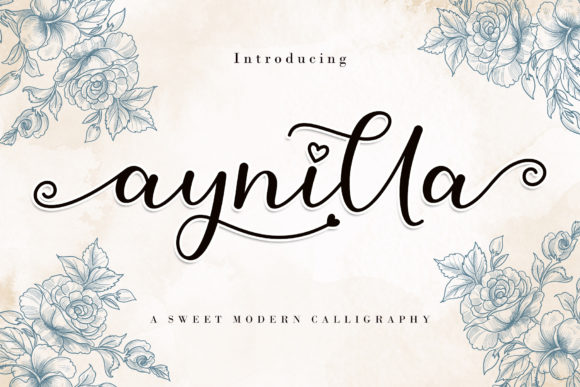
The Magic of Aynilla Font: Elevating Your Designs with Elegance
I’ll never forget the time I was working on a wedding invitation design project, and my client asked for a font that exuded luxury and romance. I scoured the internet, trying out font after font, but nothing seemed to fit the bill. That was until I stumbled upon Aynilla Font. This beautiful calligraphy typeface has been a game-changer for my designs, and I’m excited to share its magic with you! ✨
An Honest Review of Aynilla Font
- ✨ Romantic and sweet calligraphy style that adds a touch of elegance to any design
- ✅ Perfect for luxury designs, such as wedding invitations, branding, and packaging
- ✅ Characters that dance along the baseline, creating a beautiful, fluid look
While Aynilla Font is an amazing addition to any design project, there are a few things to keep in mind: 🤔
- ⚠️ Some users may find the font a bit challenging to read in large blocks of text
- ⚠️ Not suitable for very small font sizes, as some details may get lost
The Backstory of Aynilla Font
Aynilla Font was designed with the intention of creating a beautiful, elegant calligraphy typeface that would add a touch of luxury to any design project. The designer aimed to create a font that would be perfect for wedding invitations, branding, and packaging, while also being easy to use and customize. 💫
Q: Is Aynilla Font suitable for body text?
A: While Aynilla Font is beautiful and elegant, it’s not ideal for large blocks of body text. It’s best used for headings, titles, and other display text where you want to make a statement. 📄